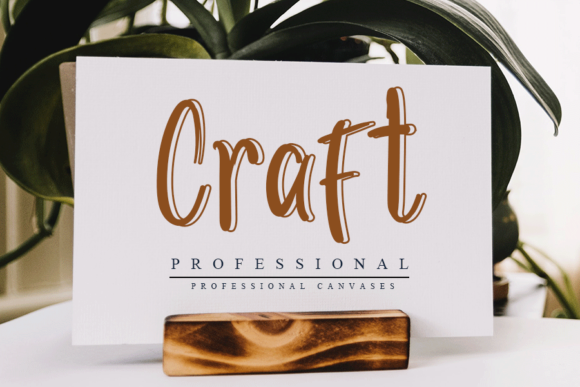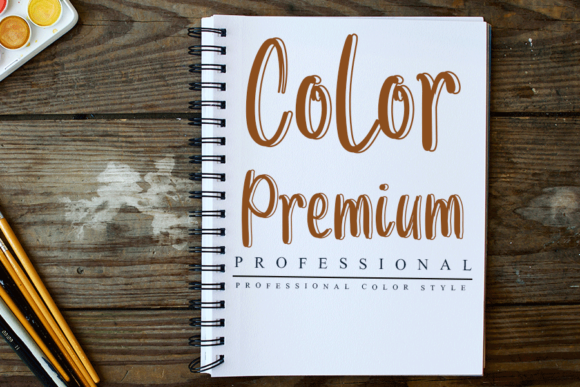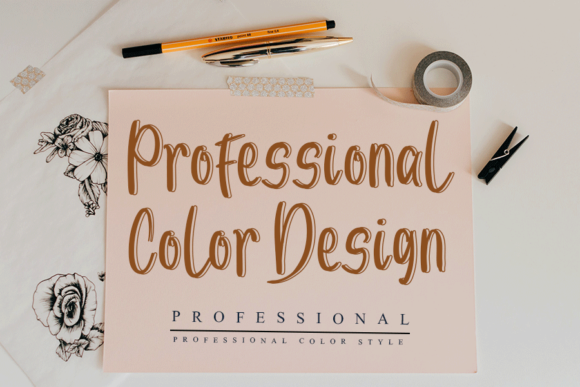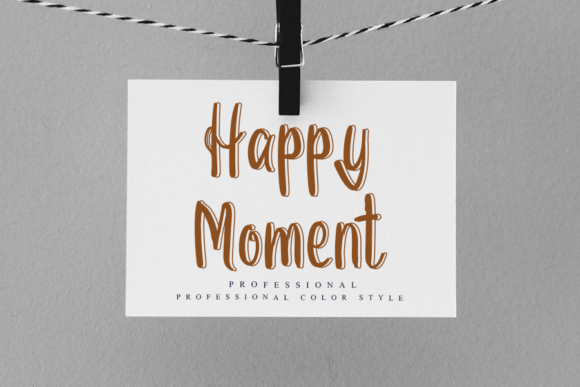
The Catoone Font: A Sweet and Friendly Companion for Your Design Journey
I’ll never forget the moment I stumbled upon the Catoone font. I was working on a project for a client’s wedding invitation, and I was struggling to find the perfect font that captured the sweet and playful tone of their special day. As I scrolled through my font library, Catoone caught my eye, and I knew I had found the one. Its natural, handwritten style seemed to whisper, “I’m perfect for this job!” And, boy, was I right! 😊
- ✅ Unique and natural handwritten style that stands out in any design
- ✅ Friendly and approachable vibe that’s perfect for projects that need a personal touch
- ✅ Highly versatile and adaptable to a wide range of design applications
- ✅ Easy to read and understand, even in smaller font sizes
A Few Quirks to Keep in Mind 🤔
- ⚠️ Some letters may appear a bit inconsistent in terms of sizing and spacing, which can be noticeable in certain design applications
- ⚠️ Limited availability of extended language support, which might be a concern for projects requiring multiple languages
The Story Behind Catoone: A Designer Inspiration
Catoone was designed with the intention of creating a font that felt like a warm hug. The designer, inspired by the beauty of handwritten letters, aimed to craft a font that was both unique and relatable. With Catoone, you get a font that feels like it was written just for you – and that’s what makes it so special.
Q: What makes Catoone so special?
A: Catoone’s unique and natural handwritten style, combined with its friendly and approachable vibe, make it a standout font for any design project.
Q: Does Catoone support multiple languages?
A: Catoone has limited language support, so it’s best to check the font’s specifications before using it for projects that require multiple languages.
Q: Can I use Catoone in digital and print designs?
A: Absolutely! Catoone is versatile and adaptable to a wide range of design applications, including both digital and print designs.